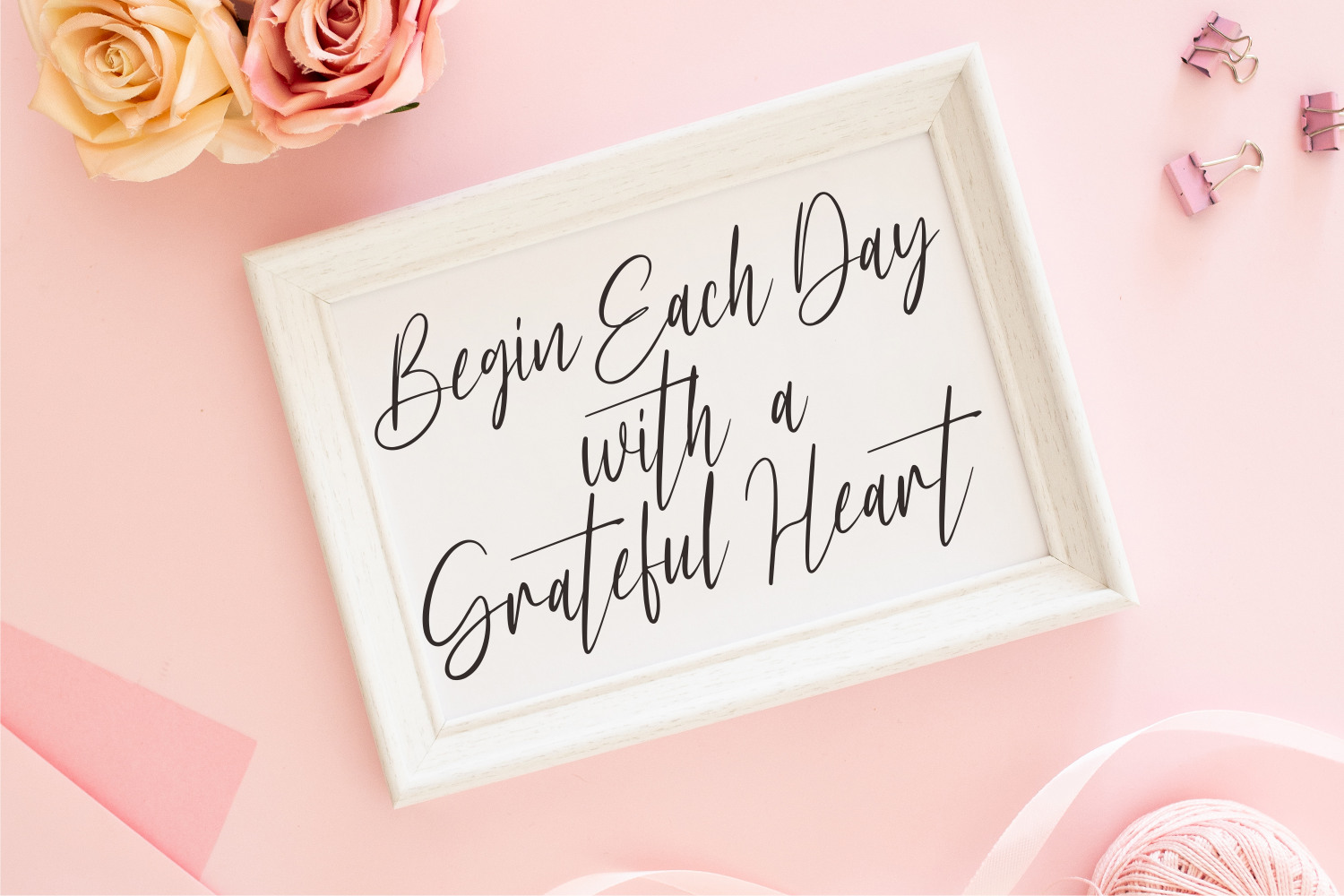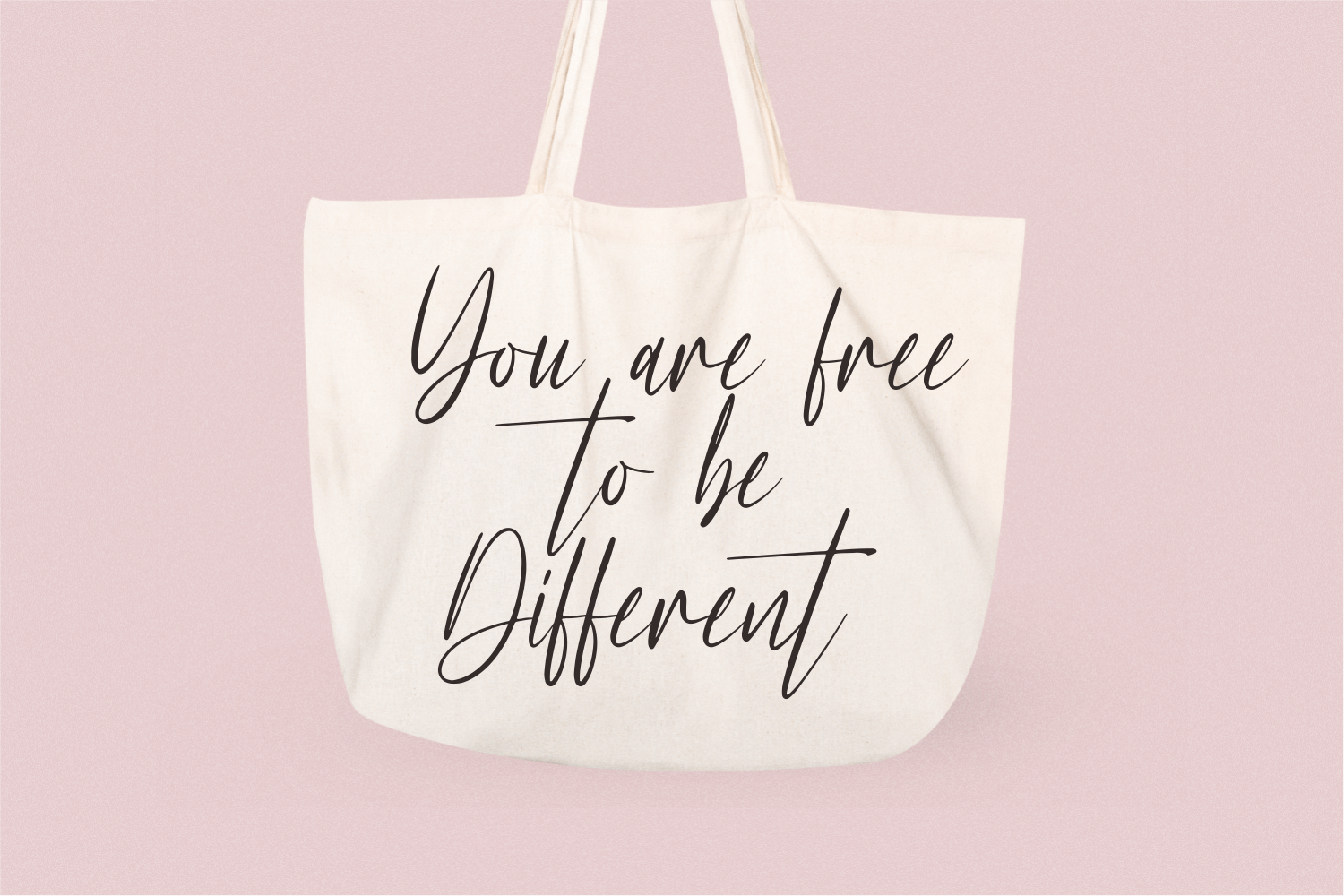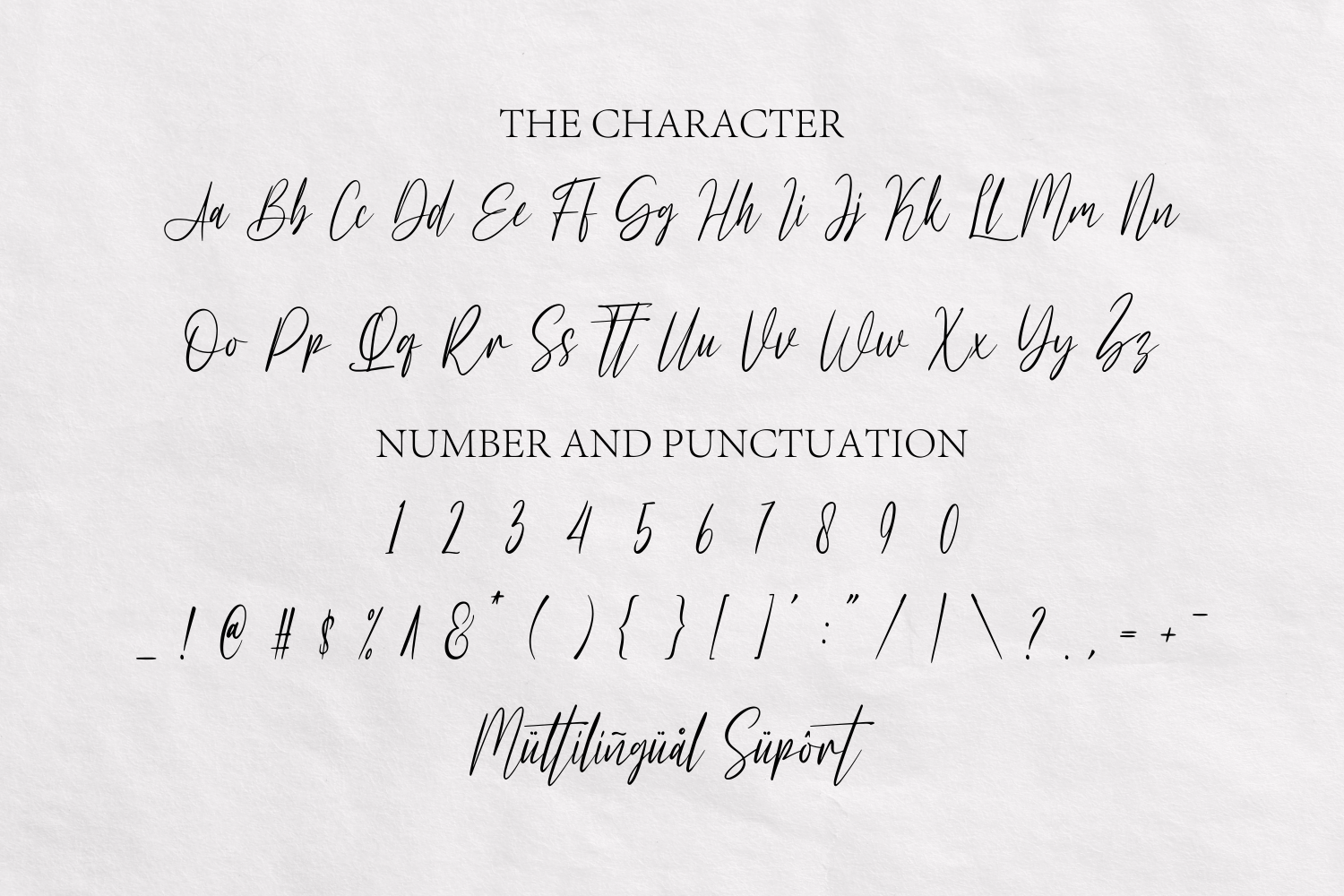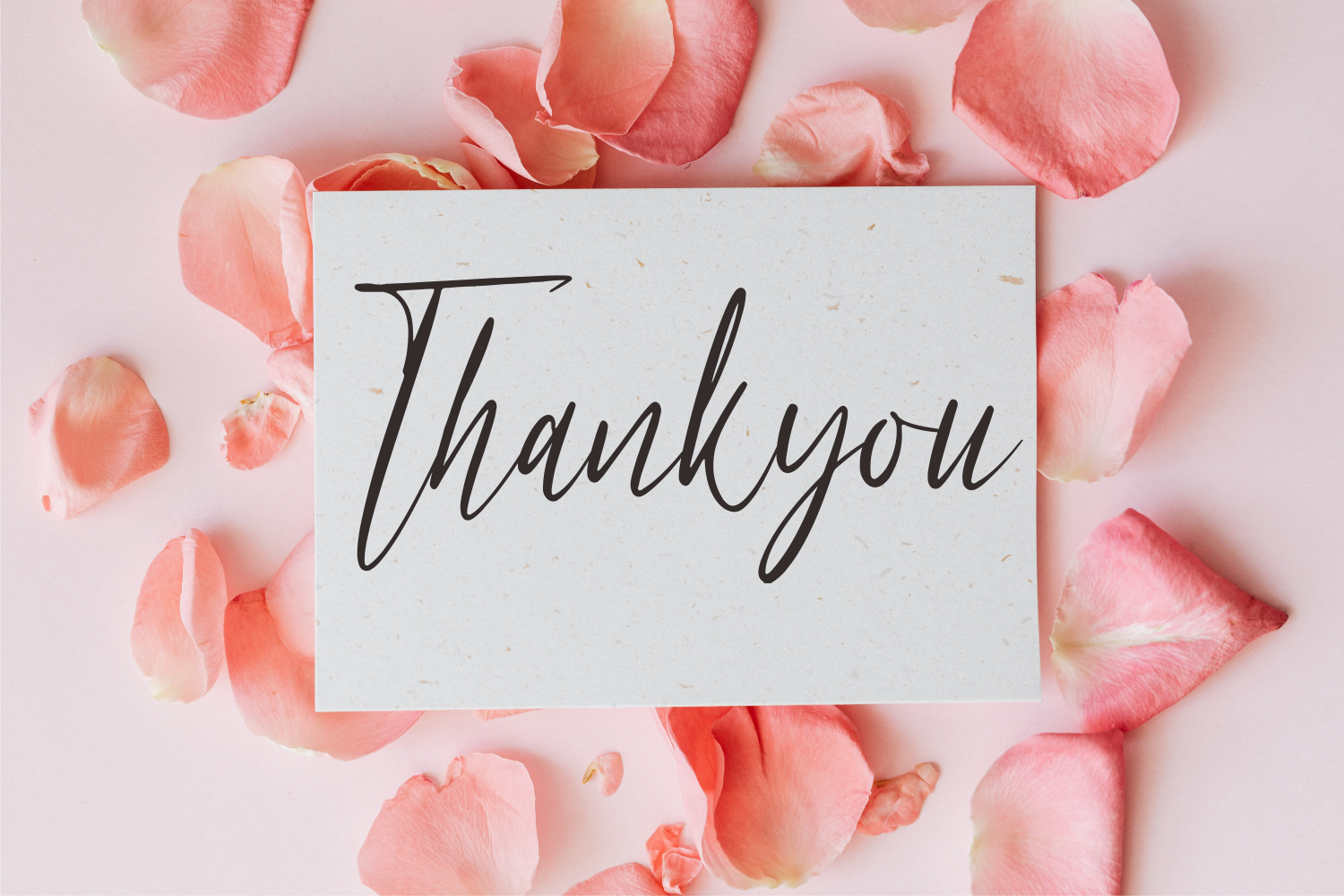
Lovely Dealer Free Font
Introducing Lovely Dealer Free Font, an elegant and delicate script font. This font is the perfect choice for a variety of projects, including logos, branding initiatives, labels, photography, watermarks, special events, and more. Infuse your lovely projects with the captivating beauty of Lovely Dealer, as it adds a touch of exquisite script style. With its graceful curves and stylish design, this font elevates your creations to new levels of sophistication. Let Lovely Dealer be the perfect companion for all your design endeavors, bringing a beautiful script taste to every project you undertake. This free typeface was designed by a talented Forberas Club. If you like it don’t forget to check out the full version.